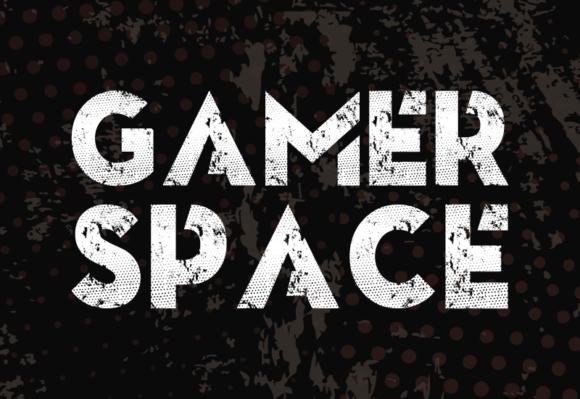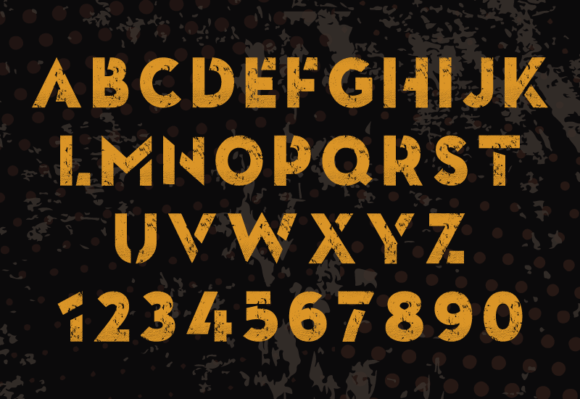
Introduction to Gamer Space Font
Unveiling Gamer Space is a truly unique, sans-serif font that breaks the mold.
With its bold, unfiltered design language, Gamer Space announces itself on every canvas with undeniable assertiveness Steeped in an edgy, worn-in aesthetic, its rough-hewn lines breathe defiance and resilience.
Why Choose Gamer Space Font?